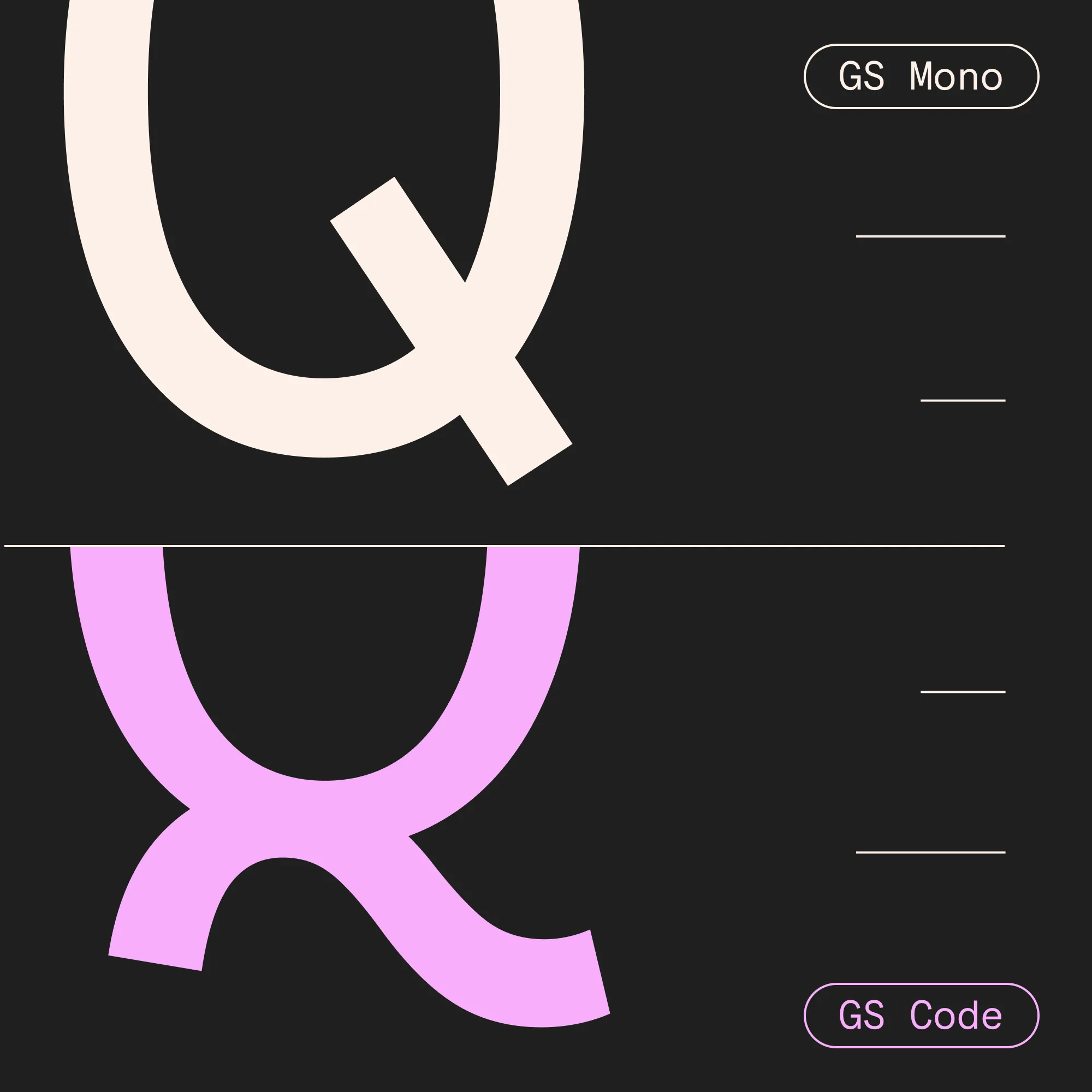
Google Sans Code vs SF Mono
Google Sans Code and SF Mono are both mono typefaces sharing a monospace foundation. The two share 78% design similarity overall. Compare which suits your Documentation project.
| Feature | Google Sans Code | SF Mono |
| Classification | mono | mono |
| Language Support | latin, latin-extended, cyrillic | latin, latin-extended, cyrillic, greek |
Where You'll See These Fonts
SF Mono
- Xcode
- macOS Terminal
- Apple developer documentation
- iOS development
- Swift Playgrounds
Recommended: Google Sans Code
- code design character
- Suited for Coding and Ui
- From Google
Consider: SF Mono
- Suited for Code Editors and Developer Tools
- From Apple